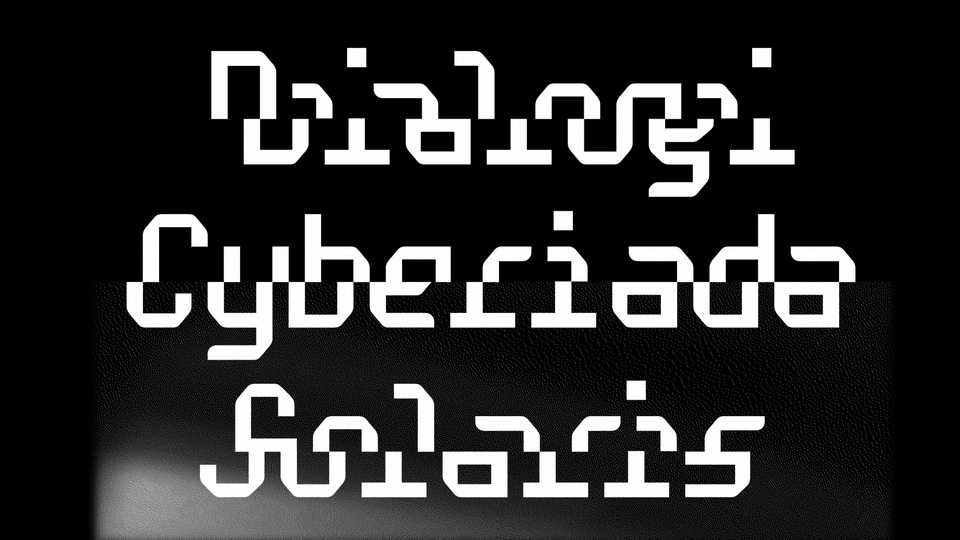
Download Defect font, a display typeface inspired by Lem’s characters from The Cyberiad and The Star Diaries and the notion that death can be reversed or prevented by repairing the mechanism.
Designer: Marcin Niedziałek